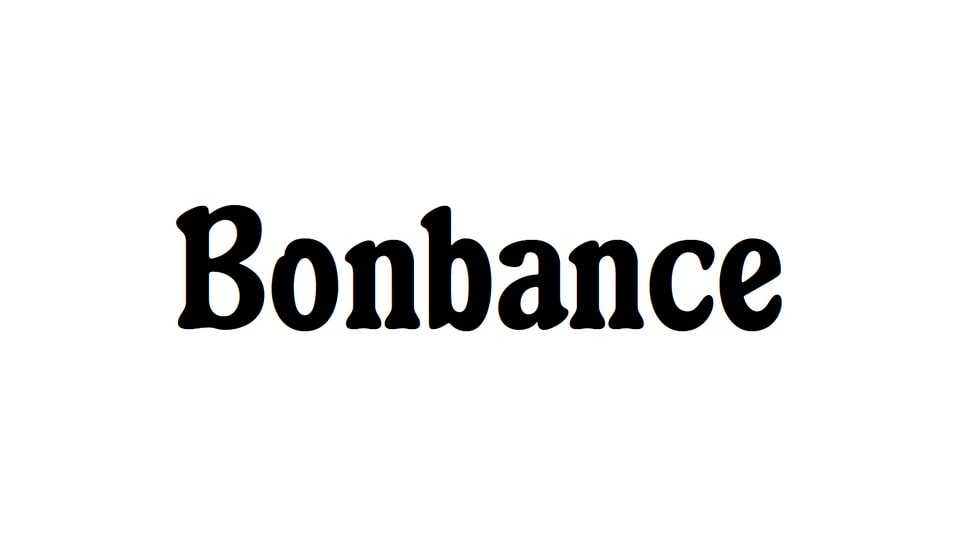
Download Bonbance font, a serif typeface based type specimen from the Jacoby & Fils printing house in Grenoble. With an exquisite blend of historical charm and contemporary grace, Bonbance font embodies the elegance and sophistication.
Designer: Louna Bourdon